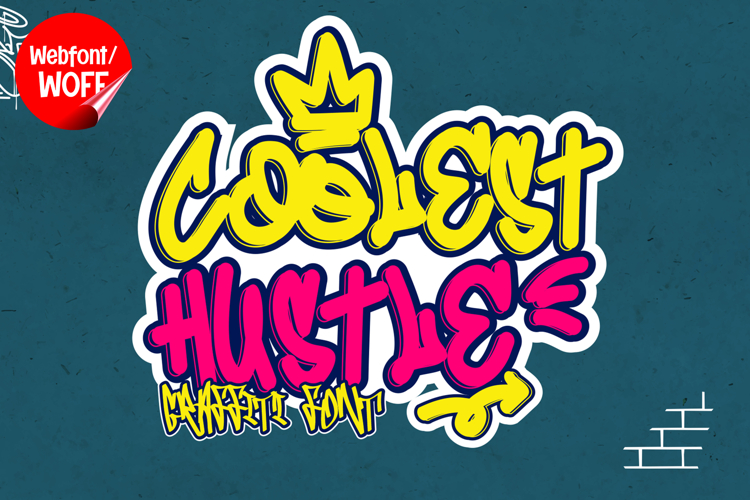
Coolest Hustle | Handwritten Graffiti Webfont
Coolest Hustle includes a complete set of uppercase characters designed with handwritten graffiti style. The letterforms have a natural flow and organic rhythm, giving the font a lively and authentic appearance. These characteristics make it ideal for headlines, banners, hero sections, and featured content where a strong urban presence is needed.
In addition to letters, the font includes numbers and punctuation, allowing flexible usage across various parts of a website. It works well for promotional content, branding elements, event announcements, and creative layouts. Each character maintains a consistent handwritten graffiti style, ensuring a cohesive and unified visual identity throughout the design.
With multilingual support, Coolest Hustle includes a wide range of accented characters, making it suitable for international websites and global audiences. This allows content to be displayed clearly across different languages while preserving the expressive and urban aesthetic.
The handwritten graffiti style of Coolest Hustle makes it especially suitable for streetwear brands, music platforms, creative portfolios, lifestyle blogs, and urban-themed websites. Its fluid and energetic design adds personality and authenticity, helping websites stand out in visually competitive environments. The natural strokes enhance the sense of movement and individuality.
Despite its freeform and expressive appearance, Coolest Hustle is designed with readability in mind. The spacing and proportions are carefully balanced to ensure clarity, particularly in display sizes. This makes it effective for impactful headings and short content elements where both style and usability are important.
Coolest Hustle is a webfont that combines handwritten expression with graffiti aesthetics and modern digital performance. Its flowing strokes, dynamic character, and urban influence create a distinctive typographic presence that enhances website design. For projects that require a bold, creative, and visually engaging handwritten graffiti font, Coolest Hustle offers a strong and versatile solution.
Coolest Hustle - Solid
Coolest Hustle - Outline
Coolest Hustle - Decorative